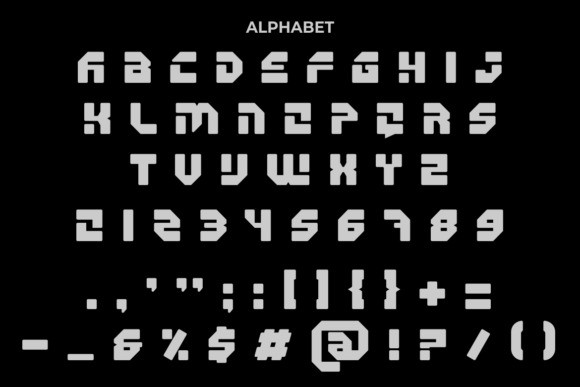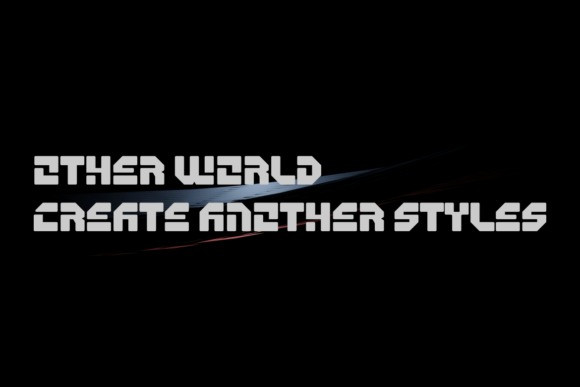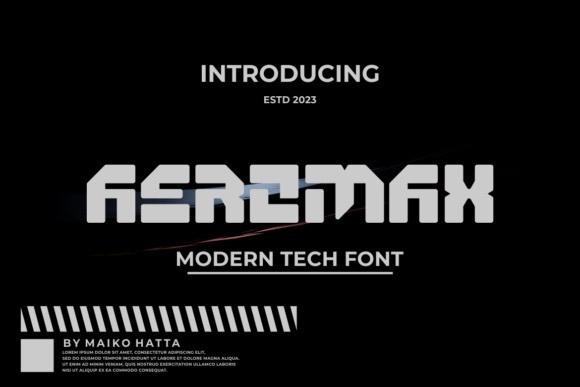
Aeromax Font
Aeromax Font – Modern Font is a bold and authentic display font. The font is suitable for any branding project like logo, template design, esport, and many more. outstanding in a wide range of contexts.